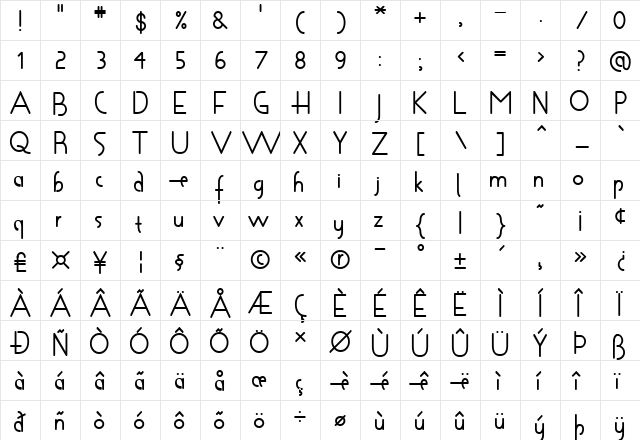
Complete Shapeshifter Regular glyph index. Displaying only characters natively supported by Shapeshifter Regular font.
Shapeshifter is a composed and adaptable typeface that performs quietly and consistently across a wide range of design contexts.